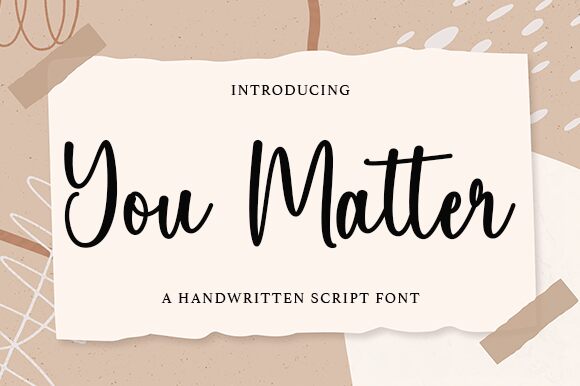
You Matter
You Matter, designed by Wahyu Studio, stands out with its authentic handwritten style that brings a personal touch to every design. This font captures the essence of individuality and expression through its fluid, variable stroke widths and the subtle imperfections that give it character and warmth.
The aesthetic appeal of You Matter lies in its ability to mimic the nuanced beauty of natural handwriting. Its elegant curves and casual elegance make it a perfect choice for projects that require a sense of intimacy or a personal connection, such as wedding invitations, greeting cards, or inspirational quotes.
Its versatility extends to branding and advertising campaigns where a human-centric approach is key. You Matter's approachable demeanor lends itself well to designs aiming for relatability and sincerity. Whether used in digital formats or print, this font by Wahyu Studio promises to add an unmistakable charm that resonates on a truly human level.